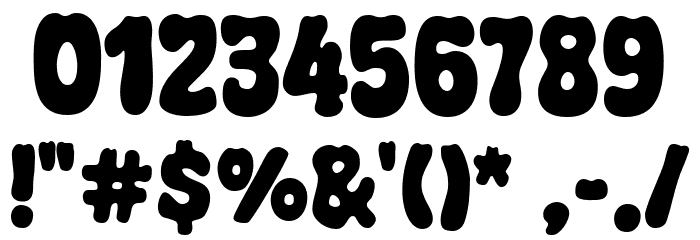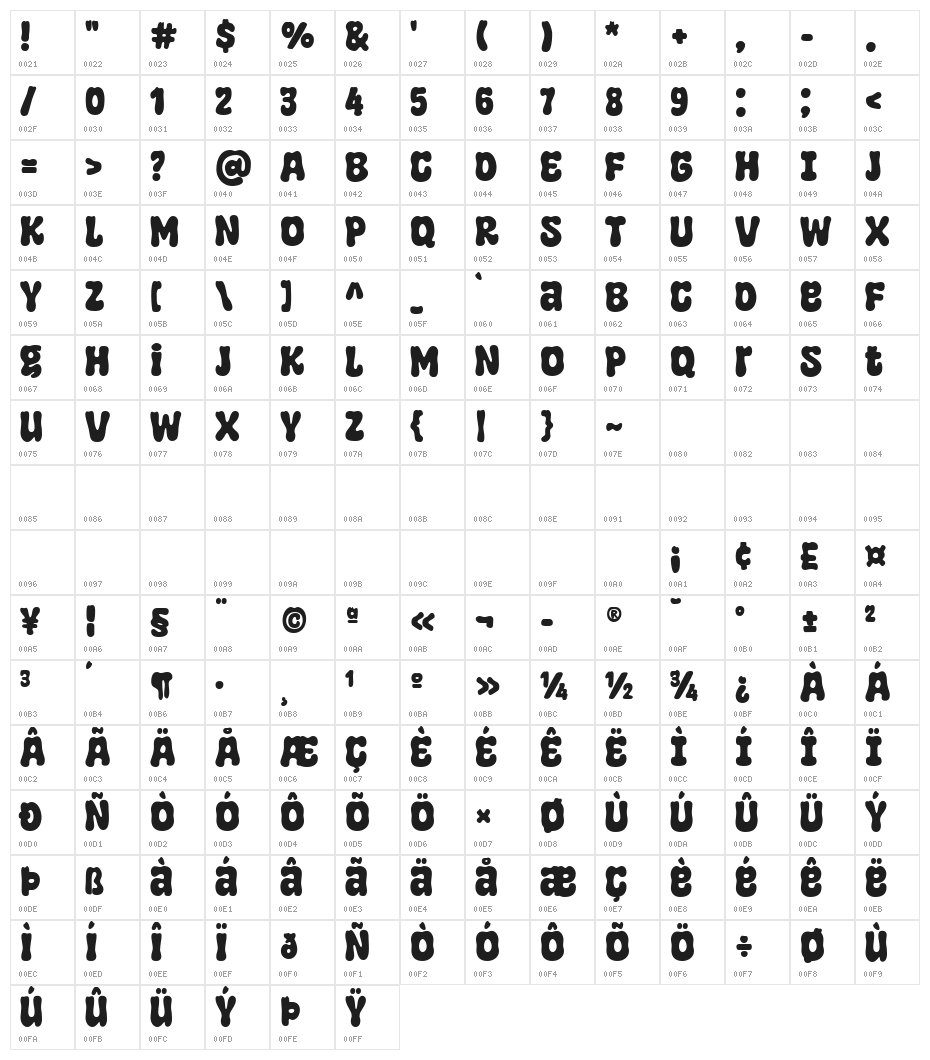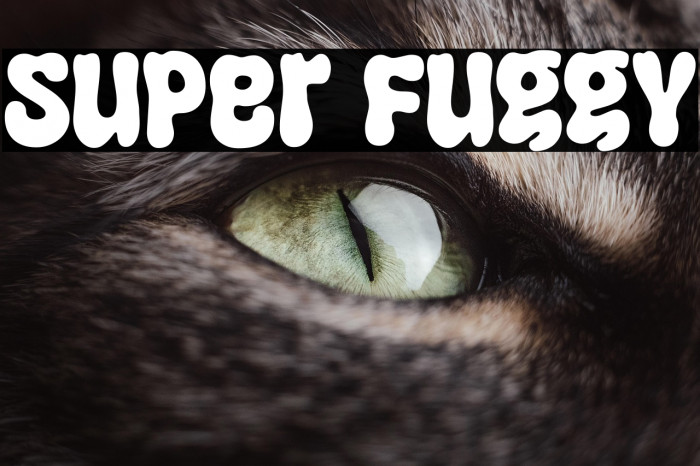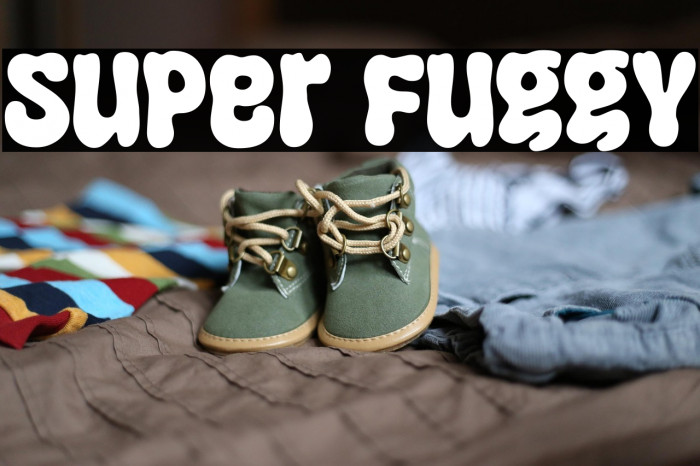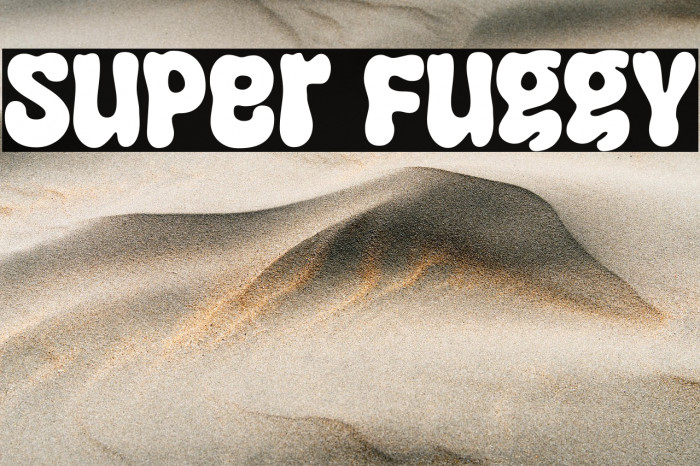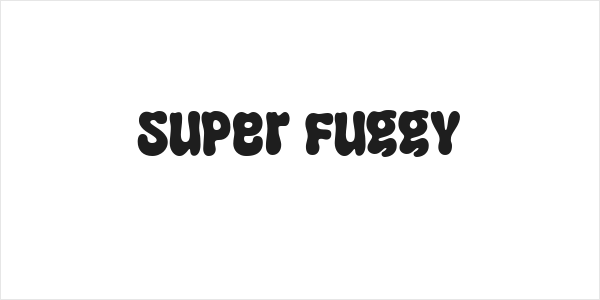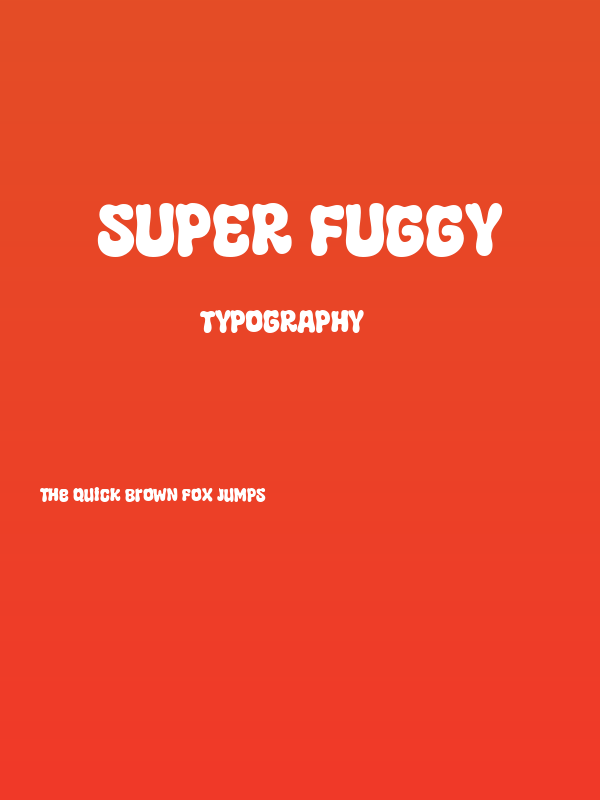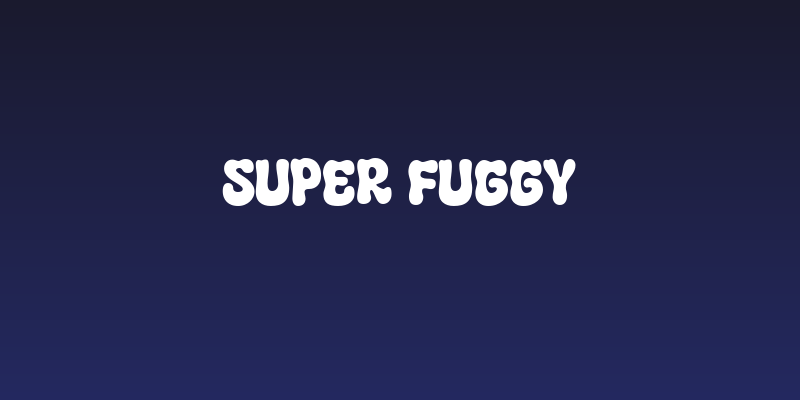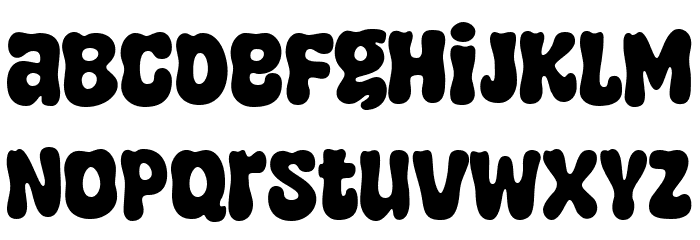
Super Fuggy Font
Super Fuggy Description
This playful and bold font features thick, rounded characters that exude a sense of fun and whimsy. The letters are heavily weighted with a bubbly appearance, making them stand out with a unique, almost cartoonish style. The font maintains a consistent thickness throughout each character, contributing to its bold and impactful look. The rounded edges and soft curves give it a friendly and approachable feel, ideal for designs that aim to capture attention with a lighthearted tone. The numbers and special characters follow the same design principles, ensuring uniformity across all elements.
| Overall Style | Playful, Whimsical, Fun |
| Proposed Projects | Ideal for children's book covers, playful branding, party invitations, and any project requiring a fun, eye-catching typeface. |